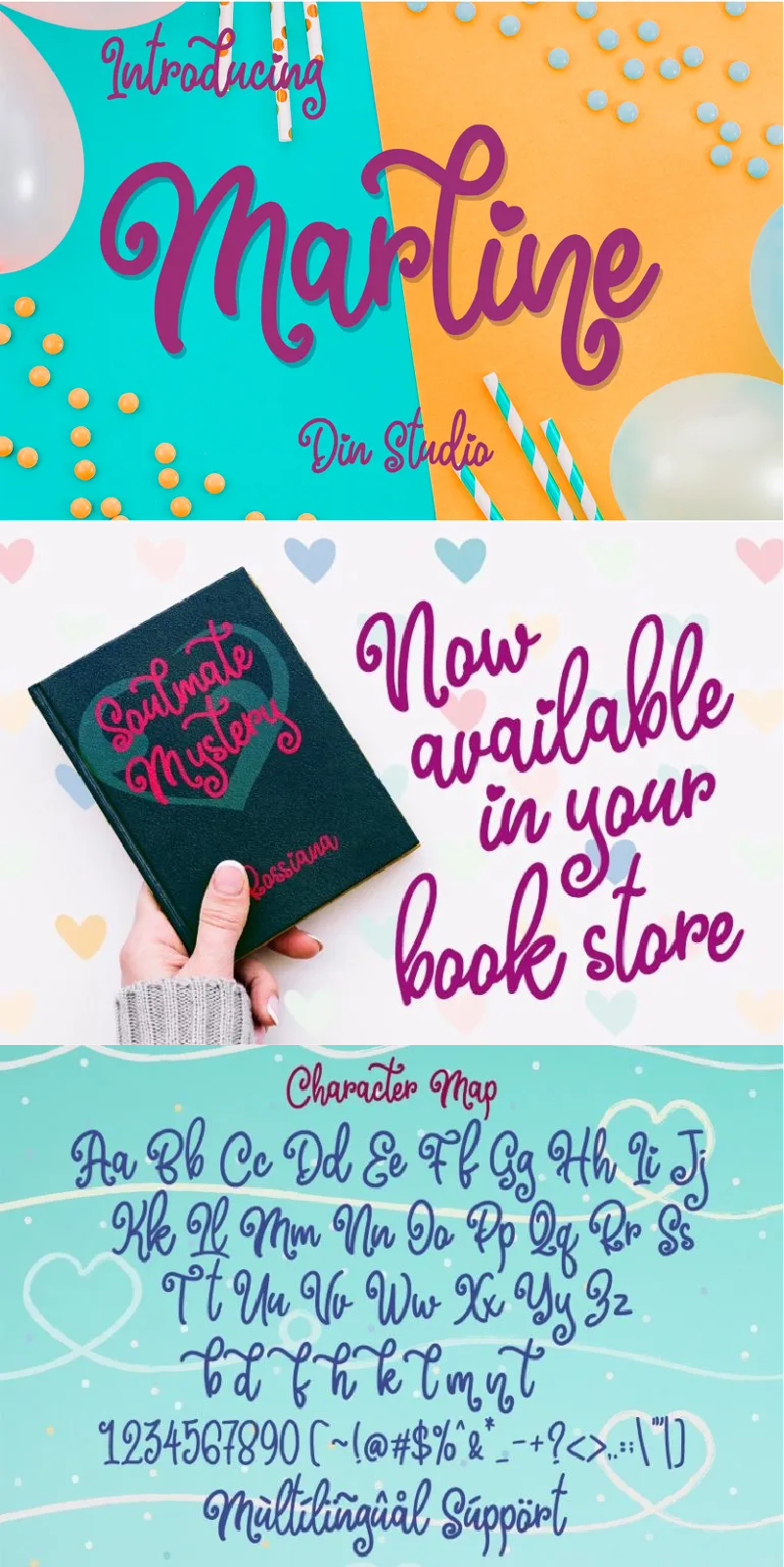
Marline Font
Marline font.
Being made from a chic monoline, this font will make your designs more beautiful. It is surely suitable for any designs, like book covers, signs, t-shirt printings, etc. See the previews above to get some inspiration on how you can use them. Happy designing!